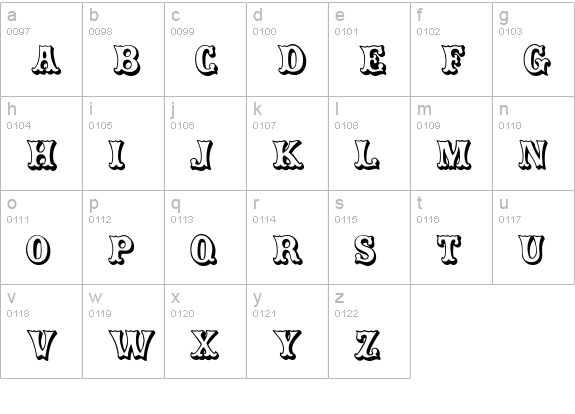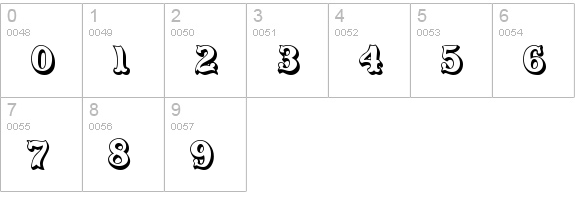
CarnivalMF OpenShadow font is a captivating and versatile typeface that adds a touch of whimsy and excitement to any design project. With its bold and playful letterforms, this font is perfect for creating eye-catching headlines, posters, and logos that demand attention. The unique shadow effect of CarnivalMF OpenShadow font adds depth and dimension to your typography, making it stand out from the crowd. Its curvaceous and flowing shapes give a sense of movement and liveliness, making it an ideal choice for projects that aim to convey a sense of joy and celebration. One of the best features of CarnivalMF OpenShadow font is that it is available for free. Yes, you read it right! This font is freely available to download at FontsMarket.com, allowing designers and creatives to add a touch of fun and vibrancy to their works without breaking the bank. Whether you are designing party invitations, carnival posters, or branding materials for a lively event, CarnivalMF OpenShadow font will surely bring your designs to life. Its bold and energetic style combined with the free availability makes it a must-have in every designer's toolkit. So, don't miss out on the opportunity to enhance your designs with the captivating charm of CarnivalMF OpenShadow font. Download it for free at FontsMarket.com and let your creativity shine!